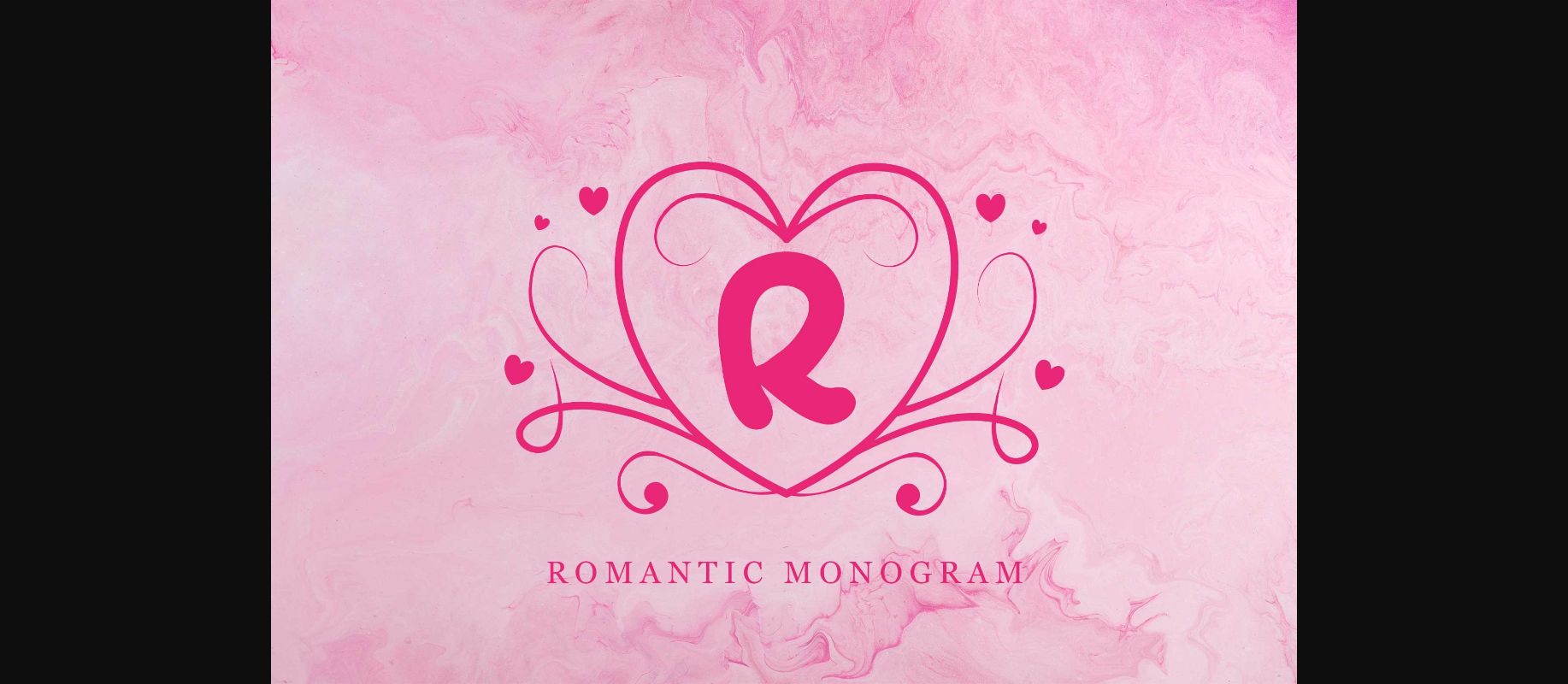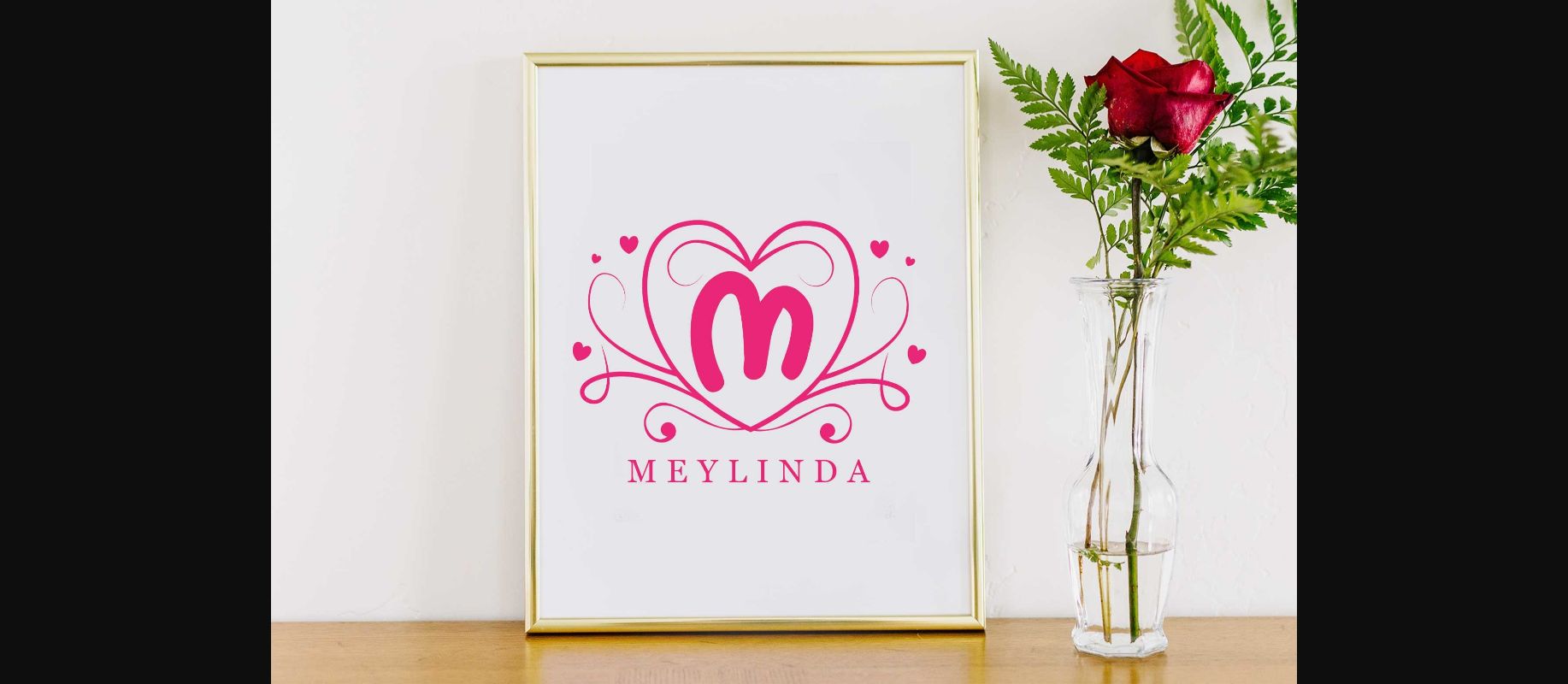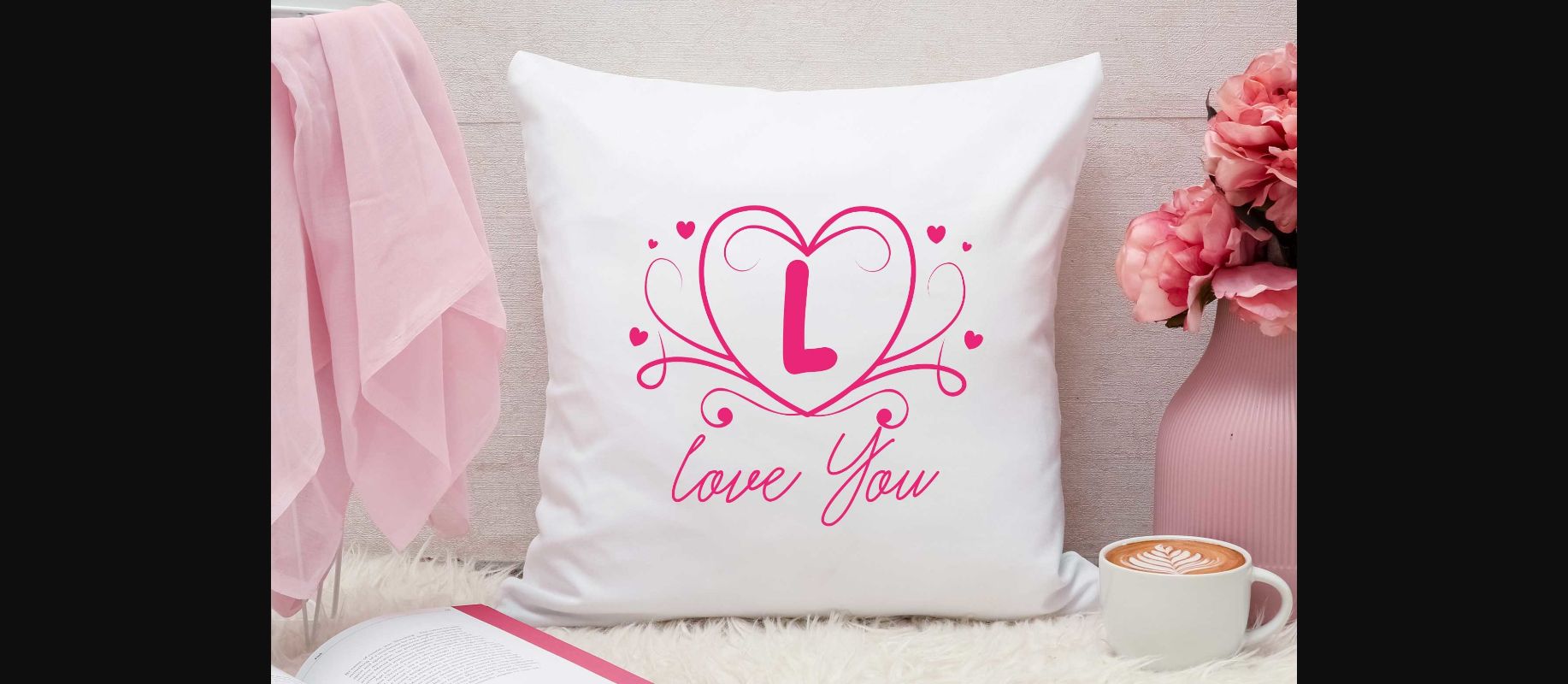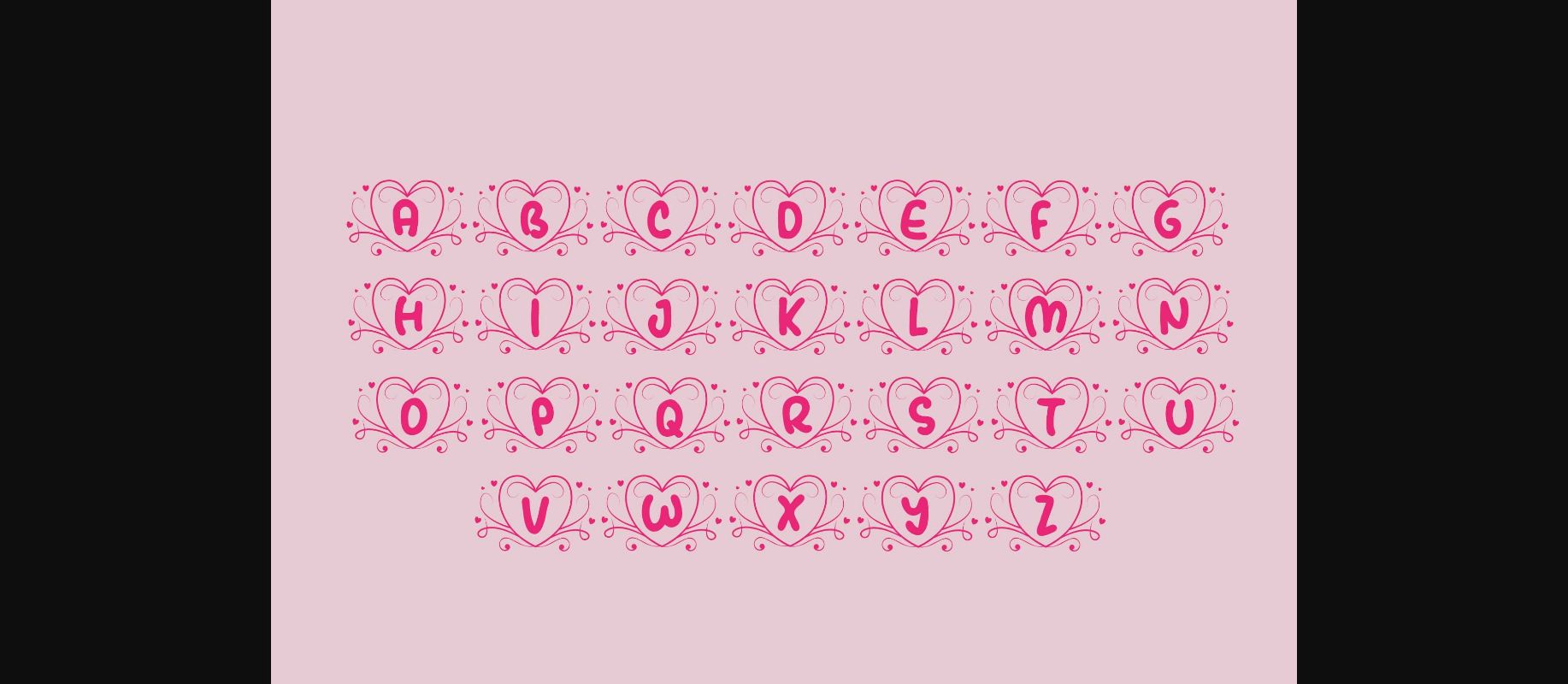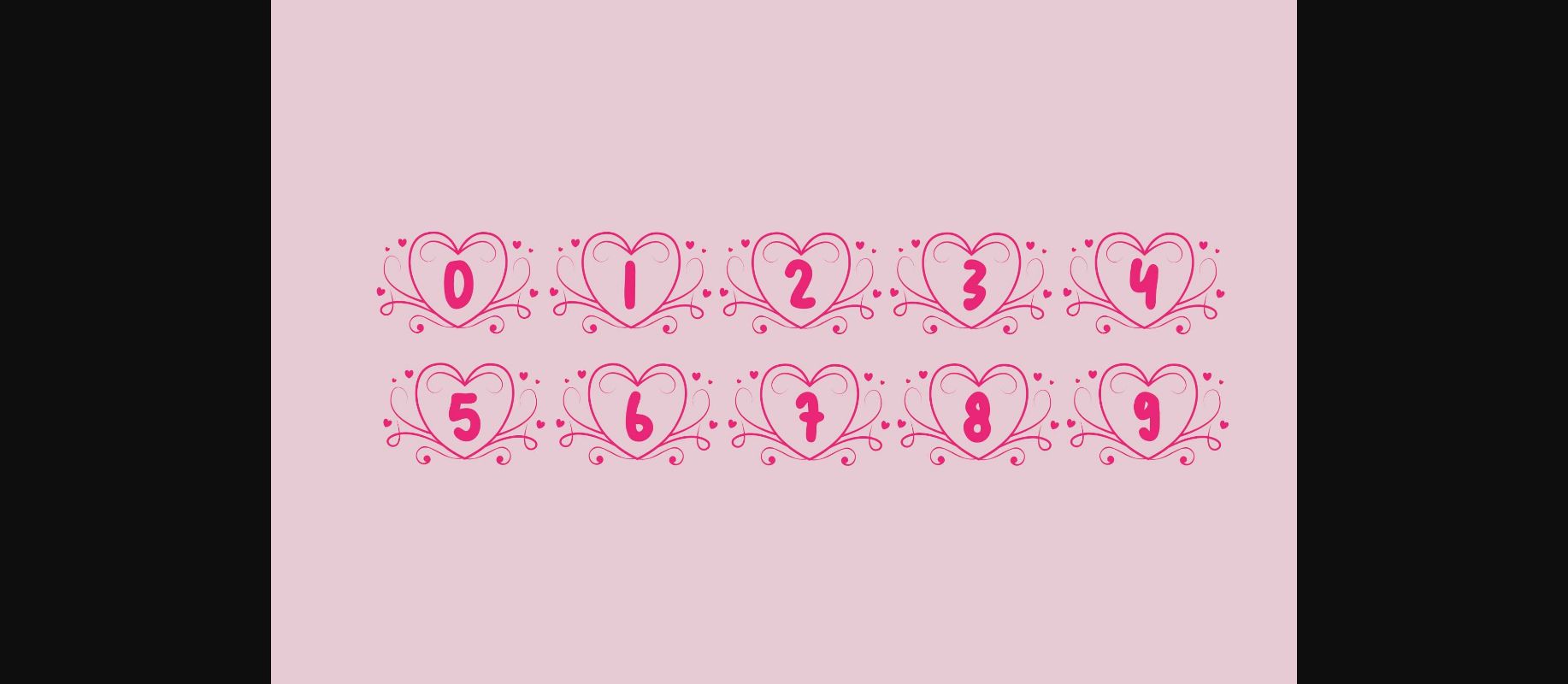
About Romantic Monogram Font
Romantic Monogram is an elegant and harmonious decorative font. Add this romantic and lovely looking font to each of your love letters, wedding invitations or favorite design ideas, and you will be astounded by the outcome.